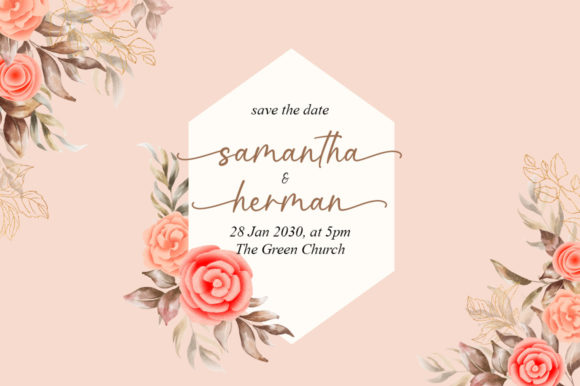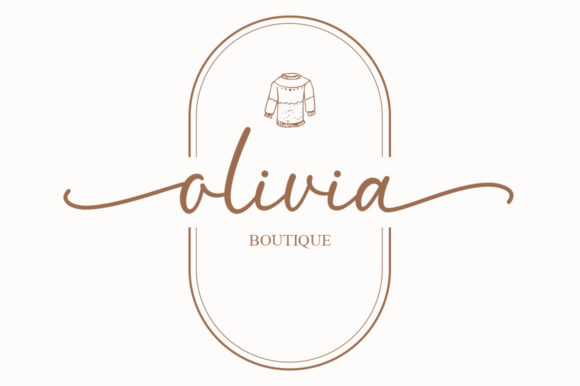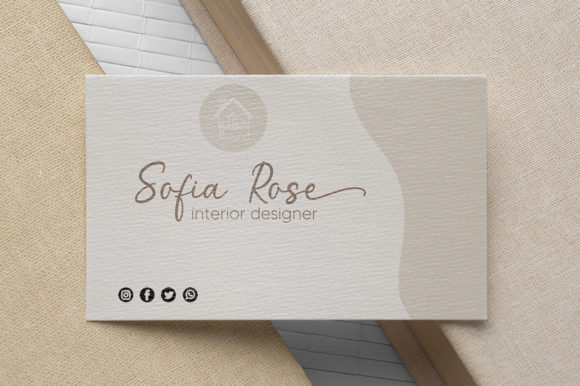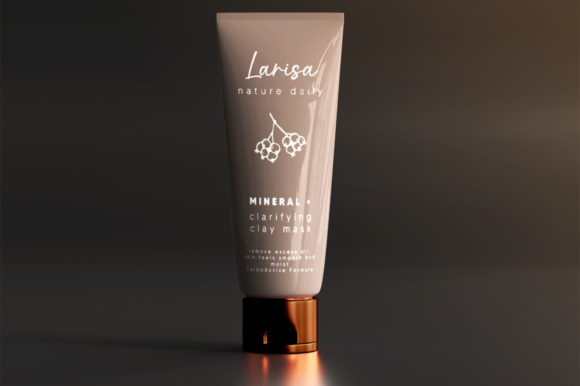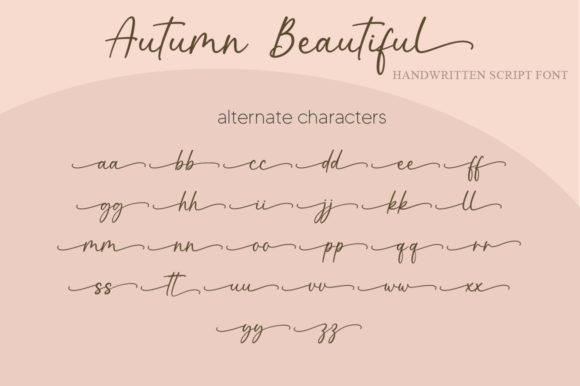
Autumn Beautiful Font
Autumn Beautiful is a lovely and delicate script font that exudes elegance and class. This font is PUA encoded which means you can access all glyphs and swashes with ease!